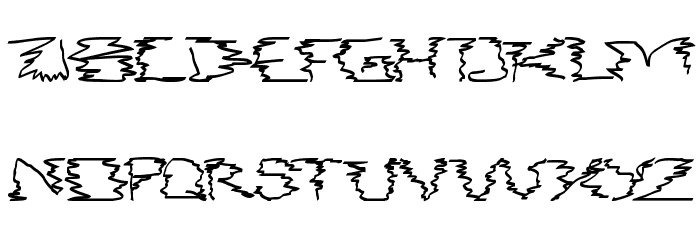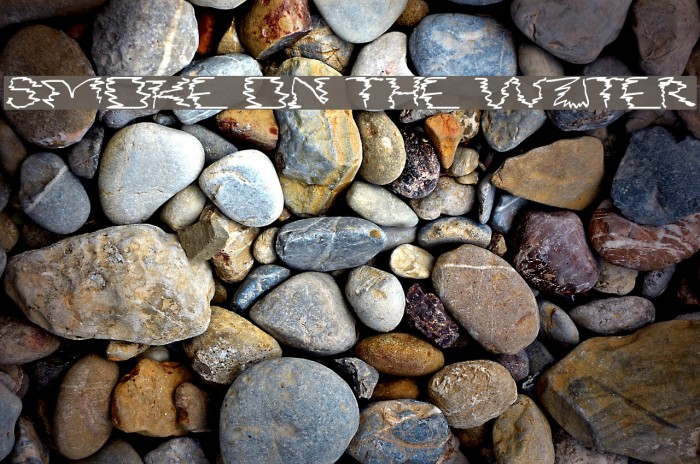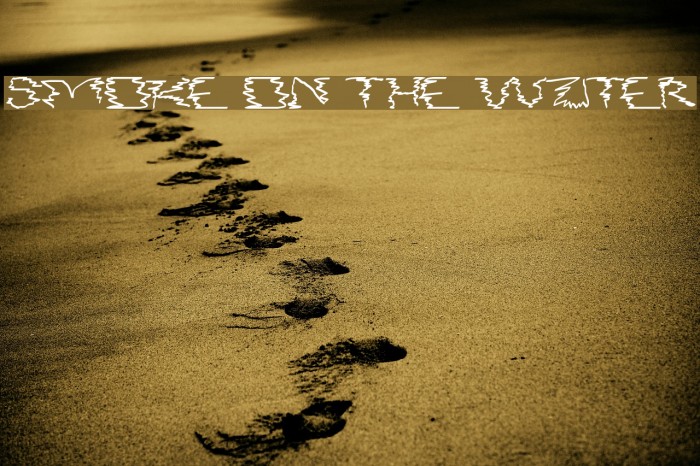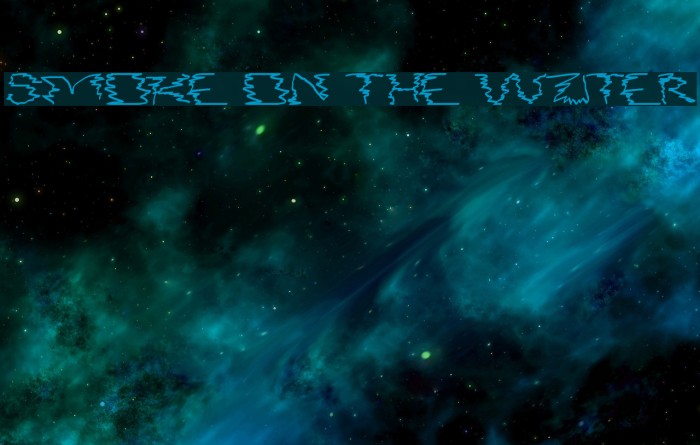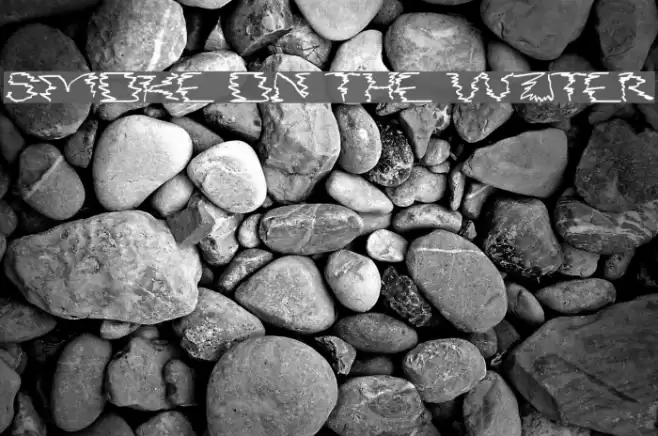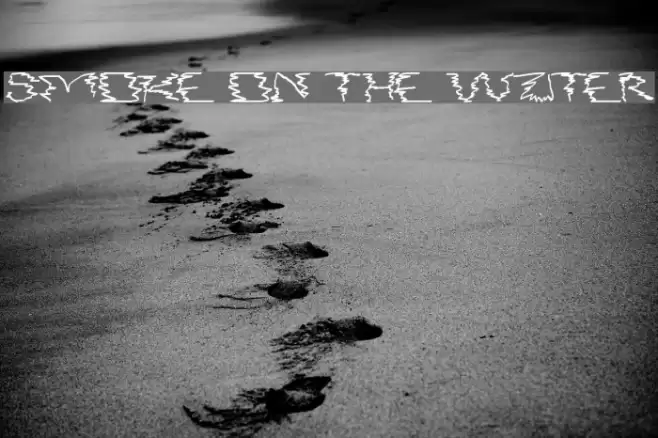
smoke on the water Font
This font features a jagged, electrifying design that mimics the appearance of lightning or sound waves. Each character is uniquely distorted, creating a sense of movement and energy. The bold, irregular outlines give it a dynamic and edgy feel, making it stand out in any design. The uppercase letters are particularly striking, with sharp angles and unexpected twists that add to the overall chaotic aesthetic. This font is perfect for projects that require a bold statement or a sense of urgency and excitement.
A jagged, electrifying font with dynamic, distorted characters.
- Proposed Projects: Ideal for music album covers, event posters, or any design needing a bold, energetic impact.
- Overall Style: Modern, Edgy